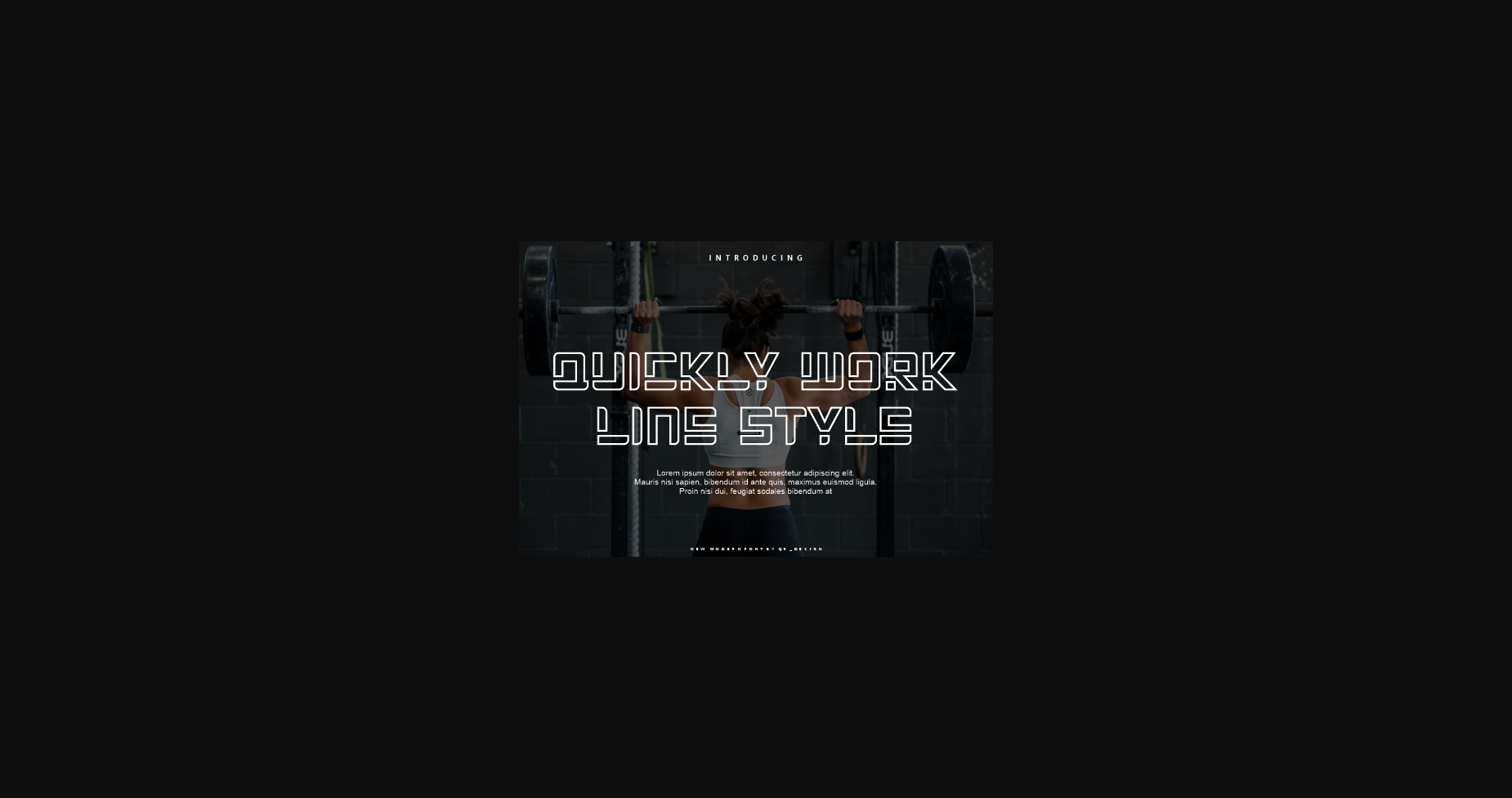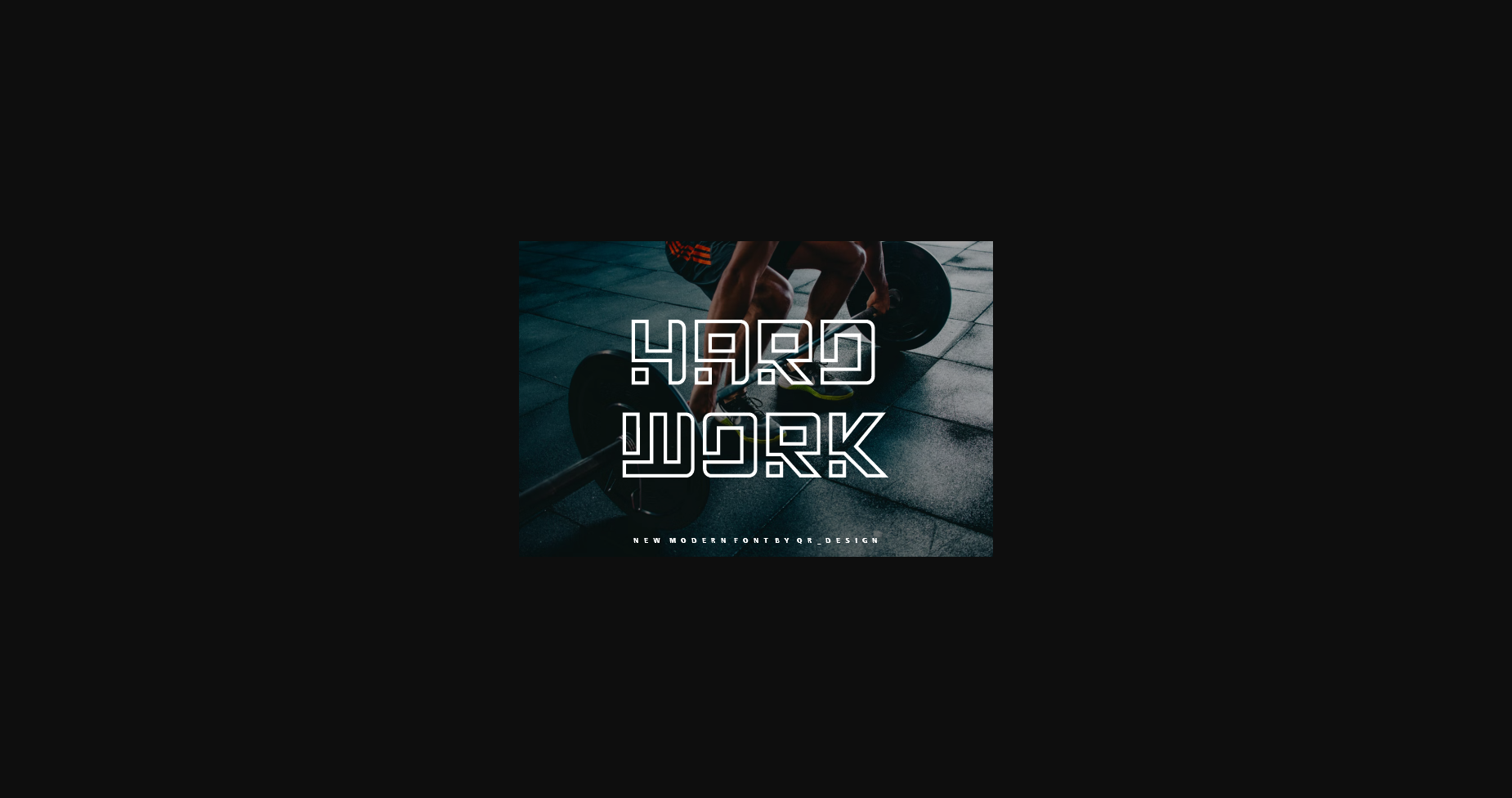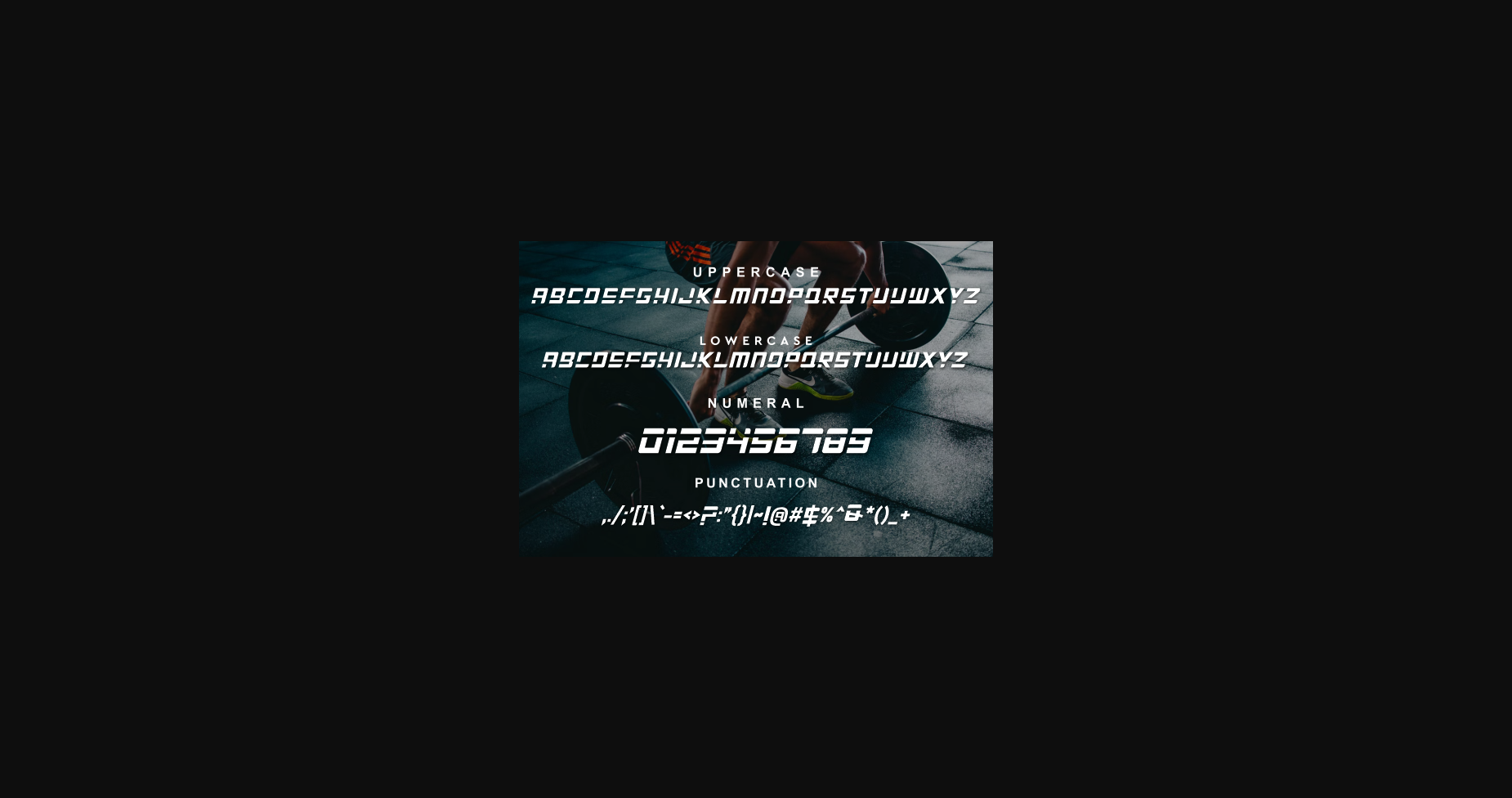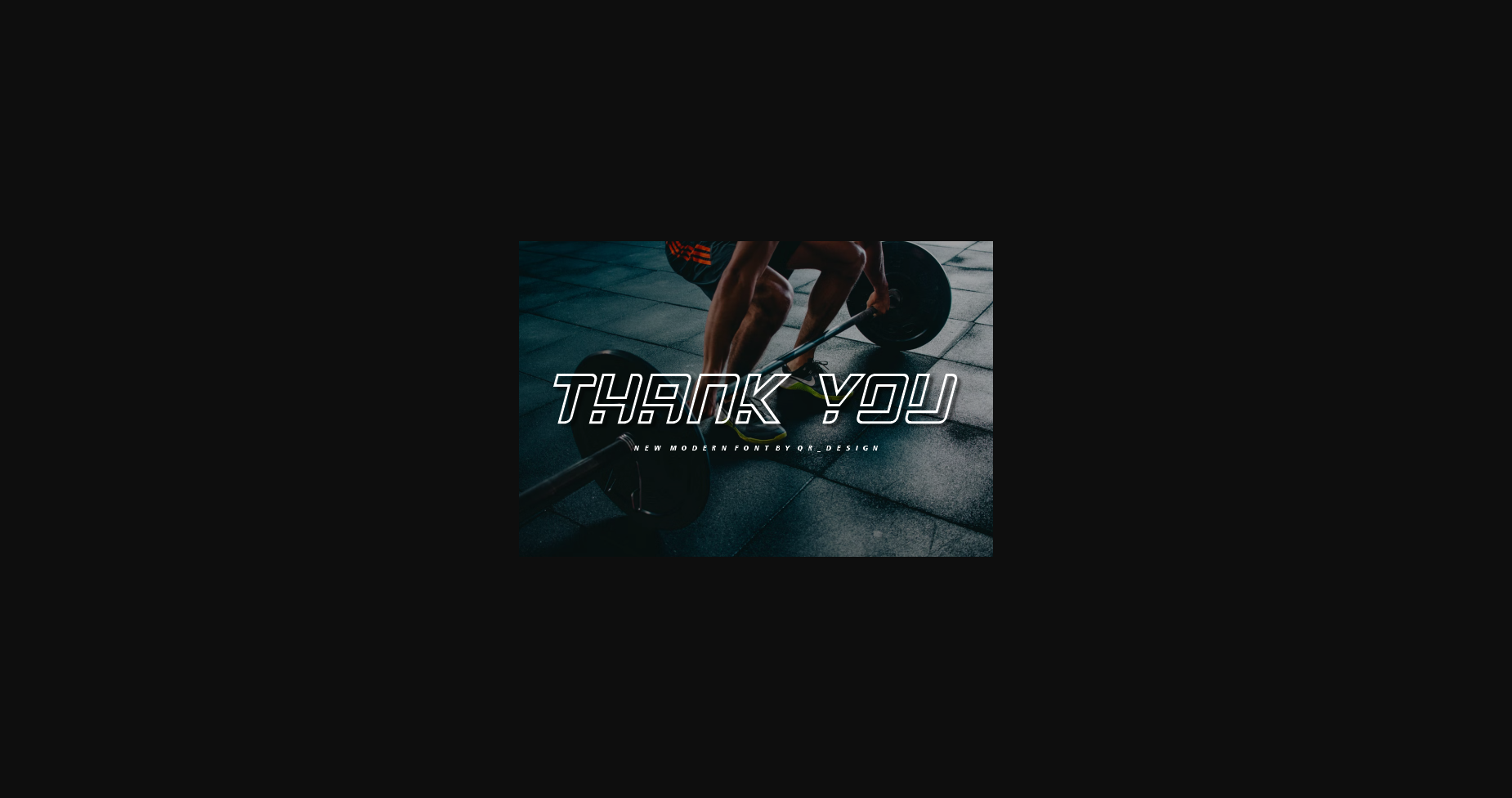
About Quickly Work Line Font
Quickly Work Line – Modern Font is a bold and authentic display font. The font is suitable for any branding project like logo, t-shirt printing, Game, esport, and many more. outstanding in a wide range of contexts.